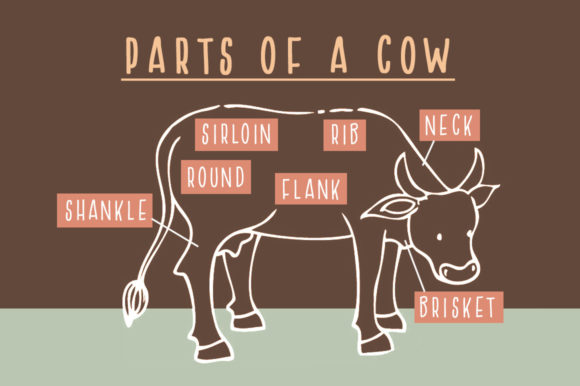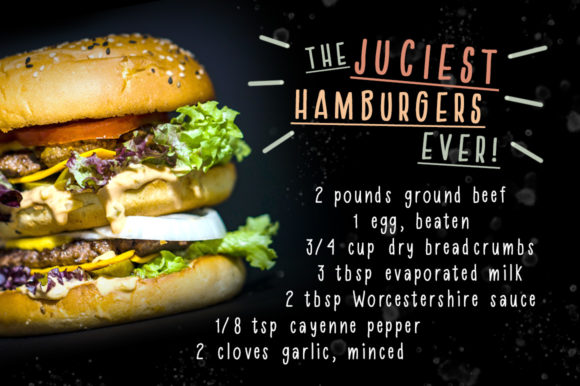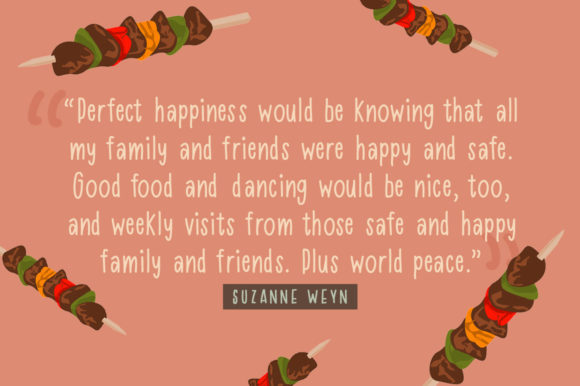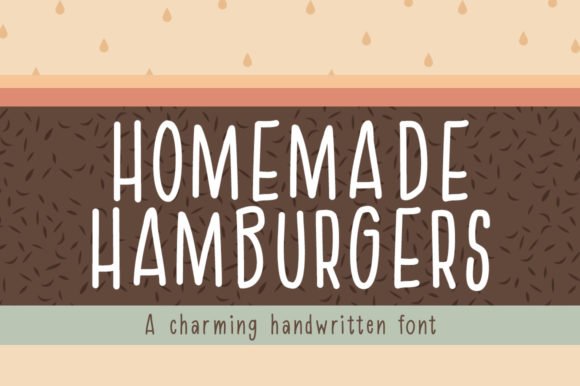
Introduction to Homemade Hamburgers Font
Homemade Hamburgers is a simple, quaint, handwritten font.
Perfect for projects that need that homemade, organic vibe, this font simply evokes a taste for simple but sophisticated nostalgia .